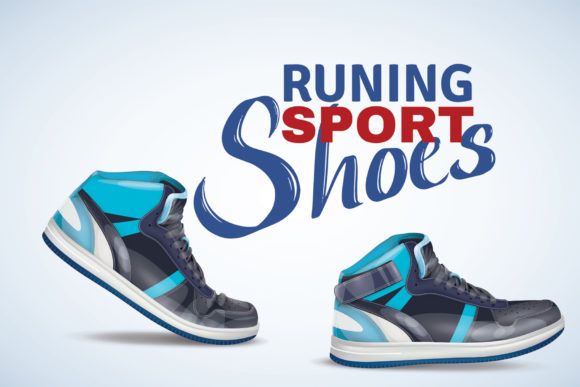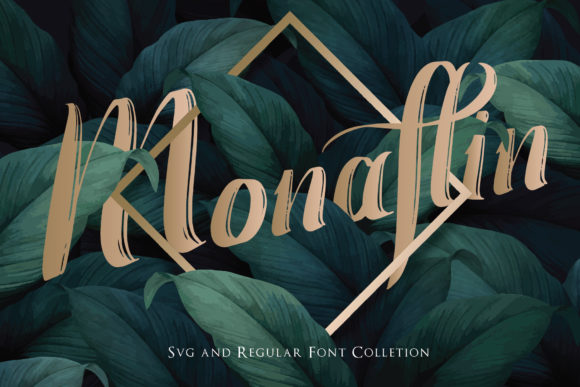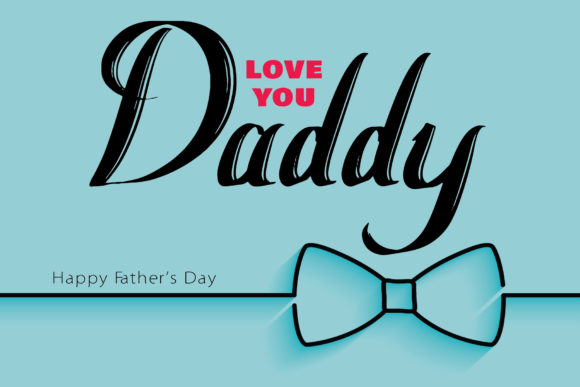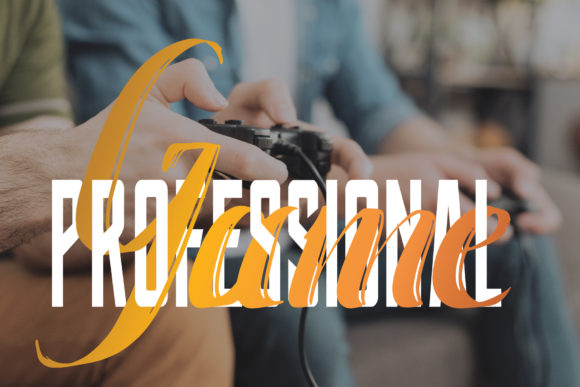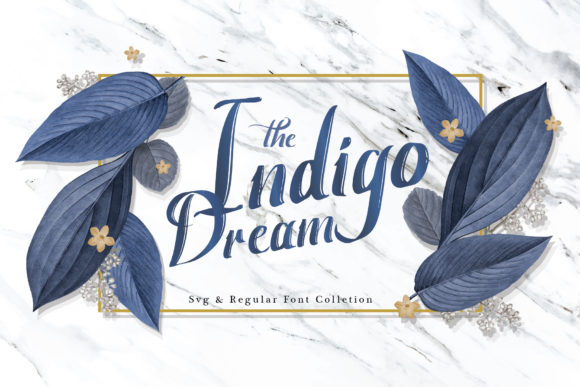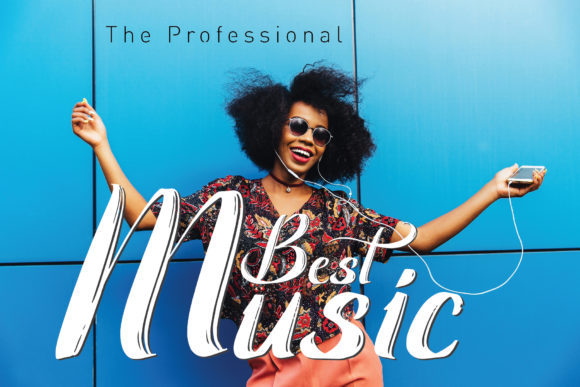
Introduction to Monaflin Font
Monaflin is a beautiful and authentic display font with a unique feel.
It will turn any design project into a stand out .
Key Features of Monaflin Font
Why Choose Monaflin Font?
Monaflin Font offers exceptional quality and versatility, making it a valuable addition to your design toolkit. Whether you’re creating for personal projects or commercial use, Monaflin Font delivers professional results.